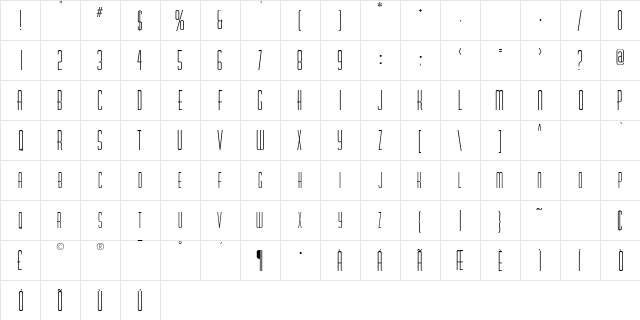
RobaloSCapsSSK Regular
Design Context for RobaloSCapsSSK Typeface
RobaloSCapsSSK is a composed and adaptable typeface that performs quietly and consistently across a wide range of design contexts.
Pro Tip: Use RobaloSCapsSSK in both headline and body roles to test its range before committing to a single application.